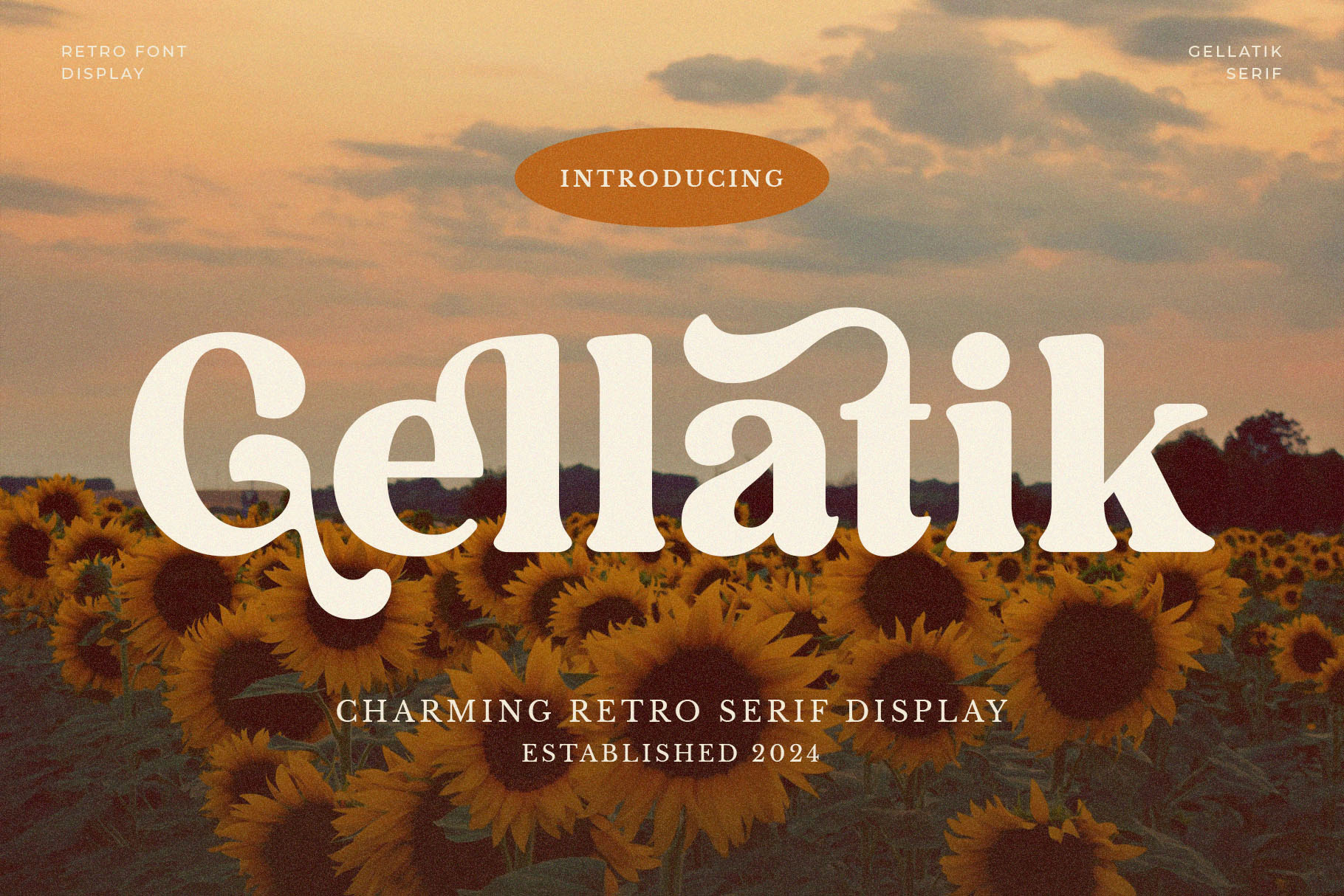
Gellatik - Retro Serif Font
Introducing our new "Gellatik" unique and modern serif font with elegant style this is perfect for branding, logos, invitation, magazines, product packaging and more.